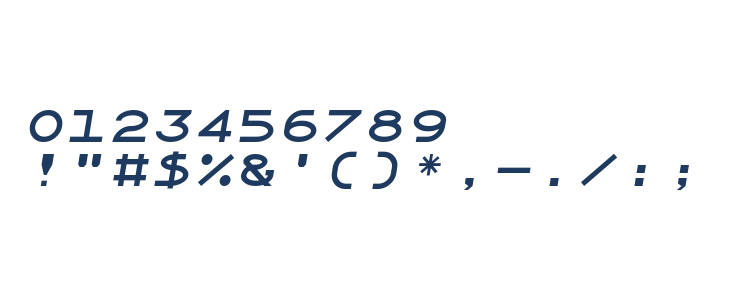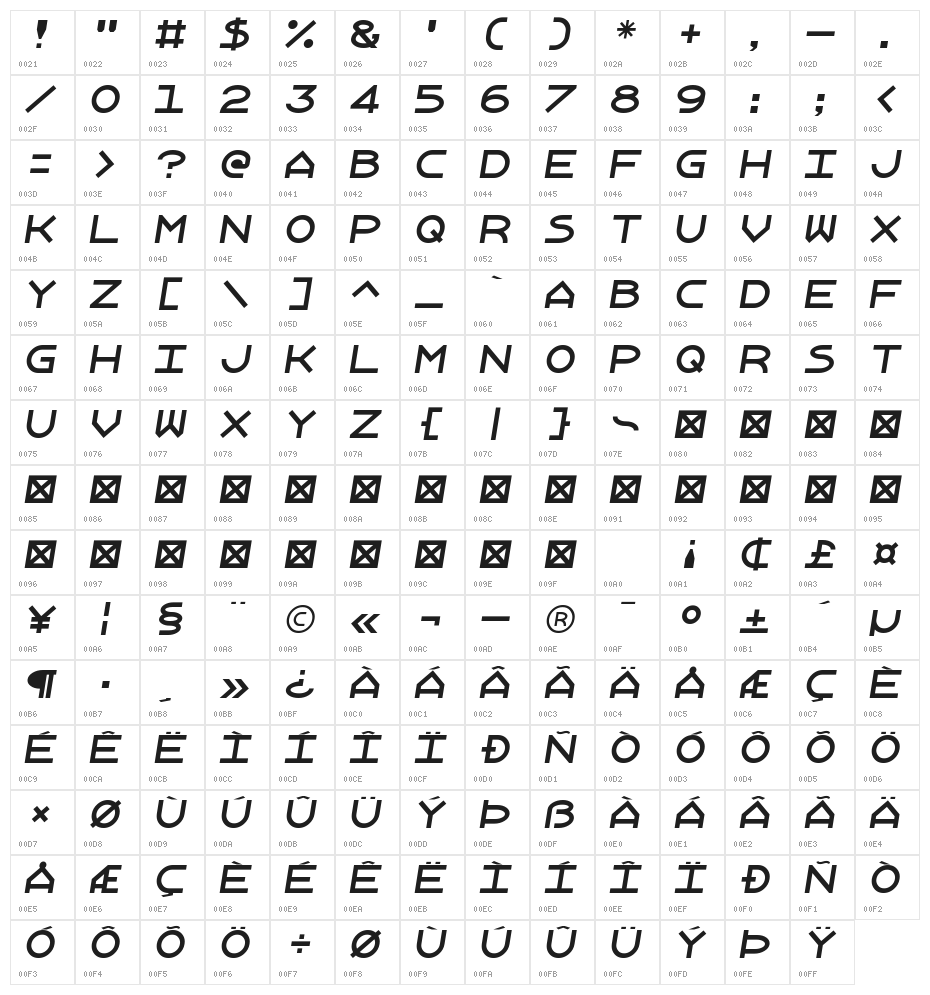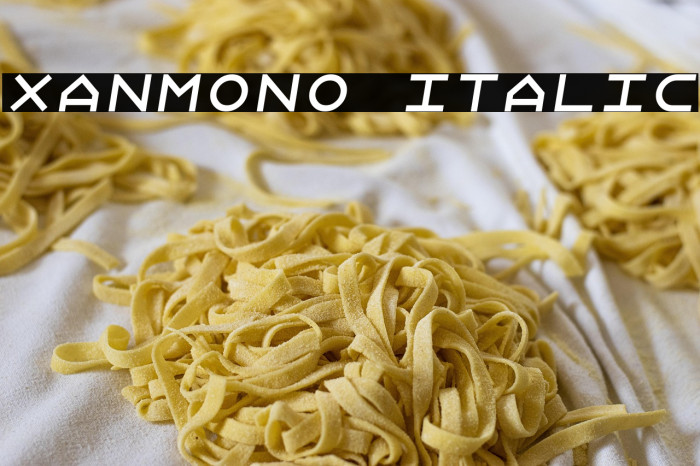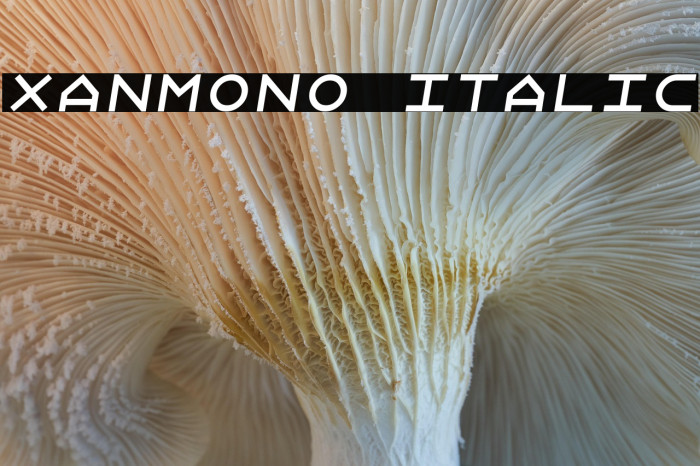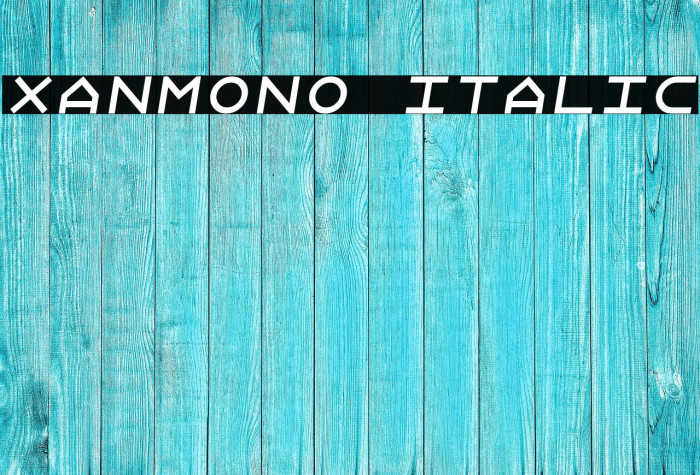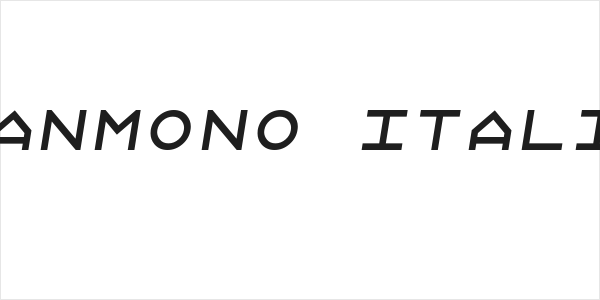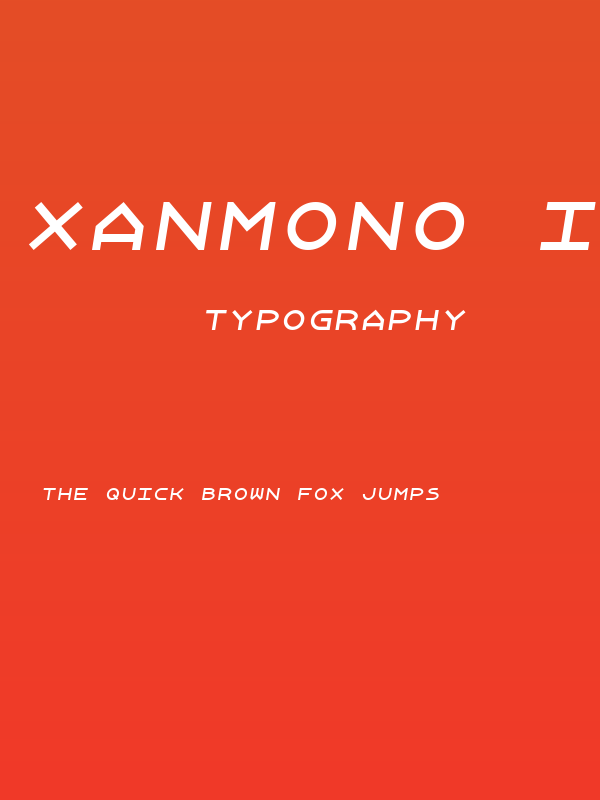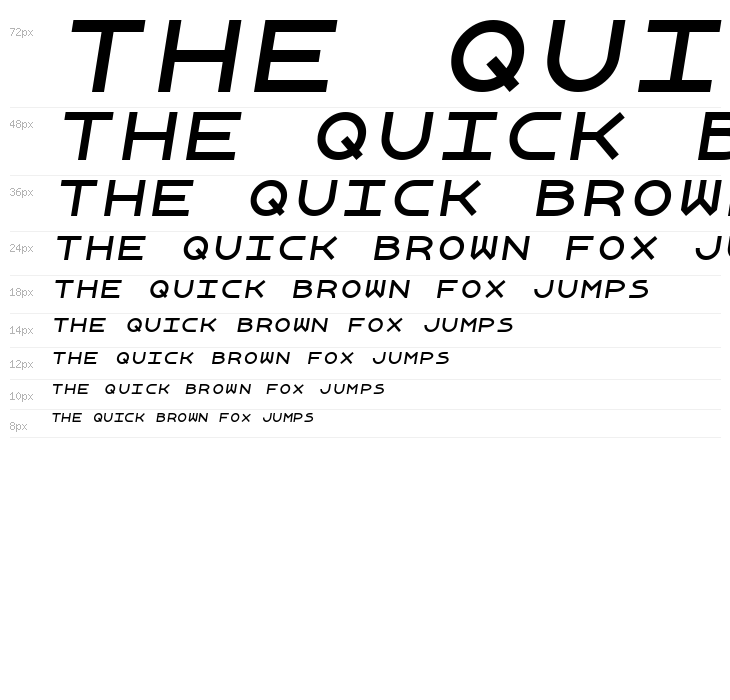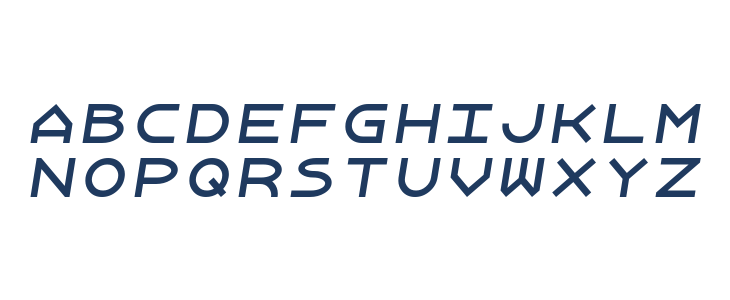
Xanmono Italic Font
Xanmono Italic Description
This font features a sleek, modern design with a monospaced structure, giving it a uniform appearance across all characters. The italic style adds a dynamic and forward-leaning aspect, enhancing its contemporary feel. Each letter is crafted with precision, maintaining equal spacing and consistent weight, which is ideal for coding or technical documents. The numerals are clear and distinct, ensuring readability in various contexts. Special characters are well-defined, making this font versatile for both text and numerical data presentation.
| Use Case | Coding, Technical documents, Data presentation |
| Proposed Projects | Ideal for coding, technical documents, and data presentation due to its clarity and uniformity. |